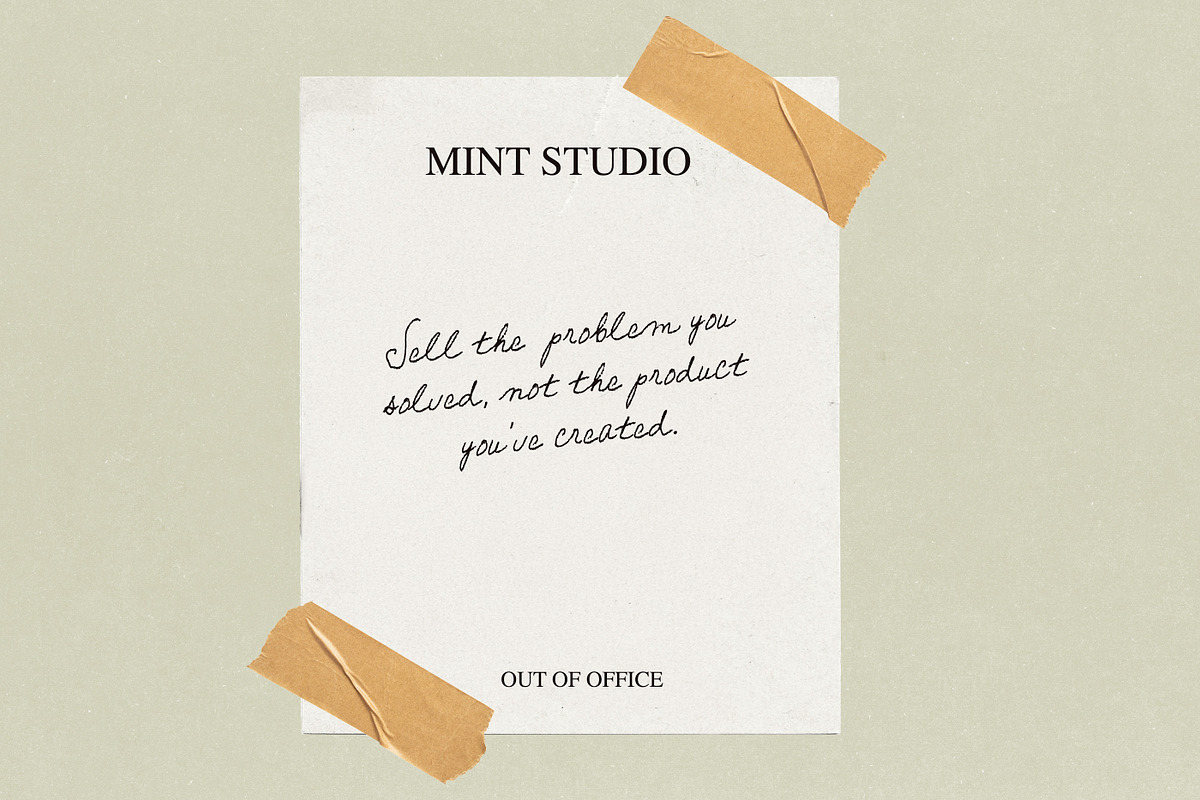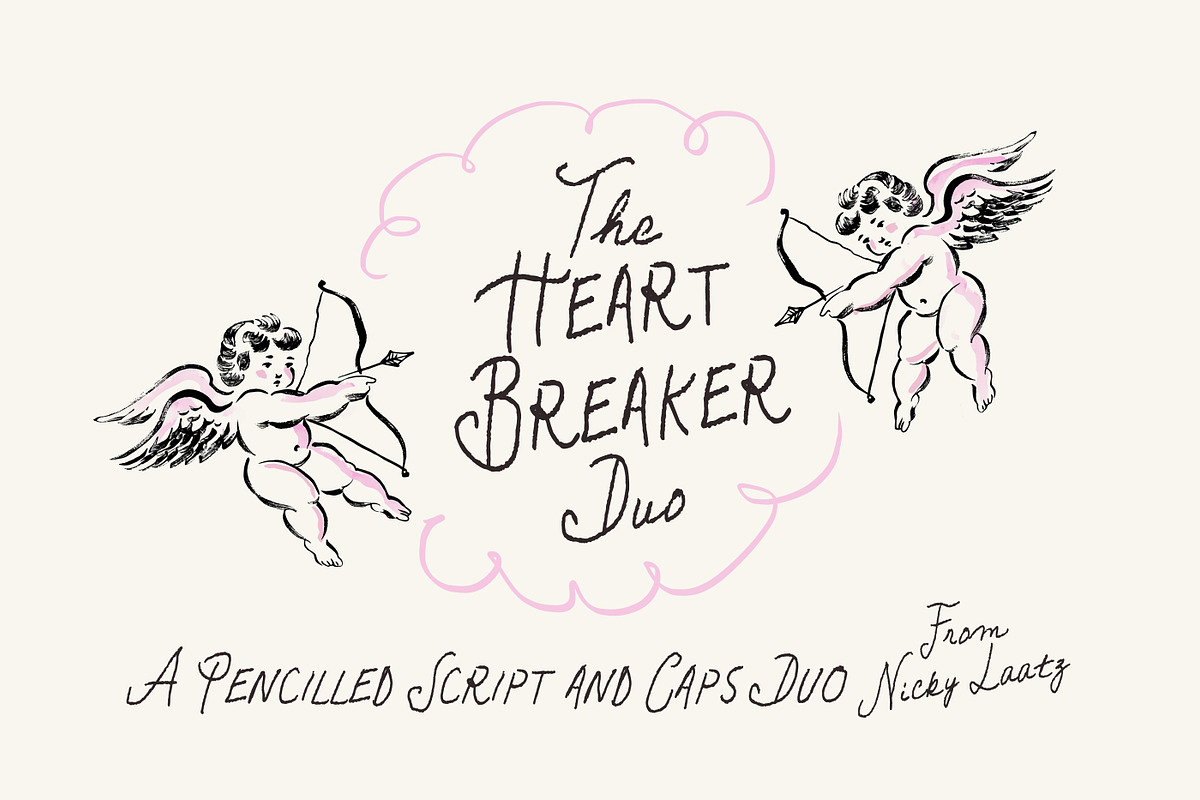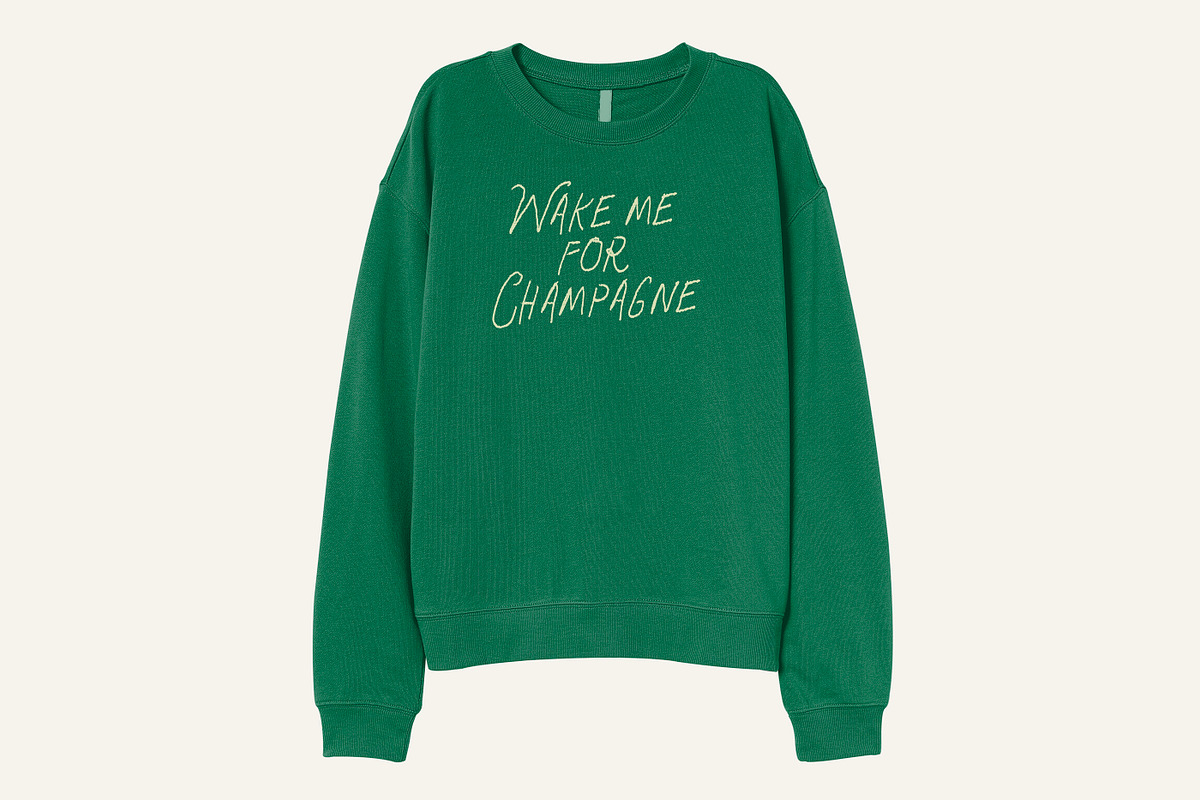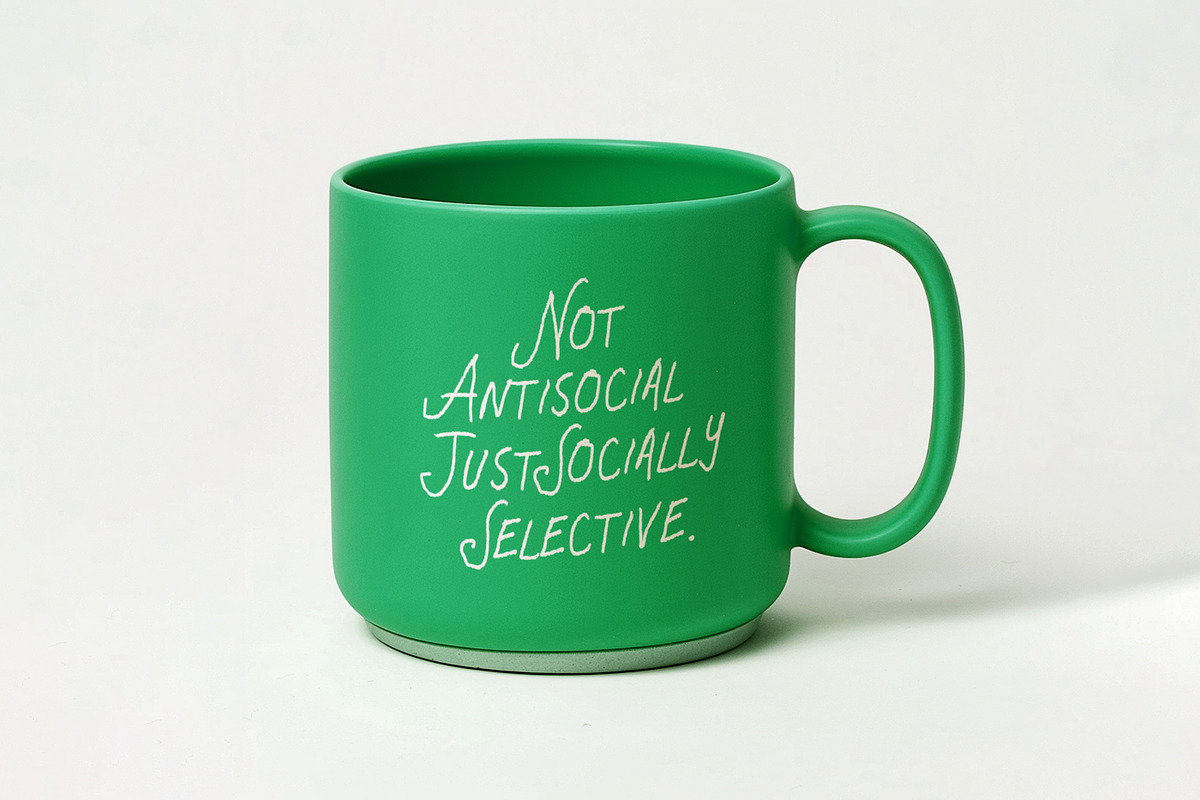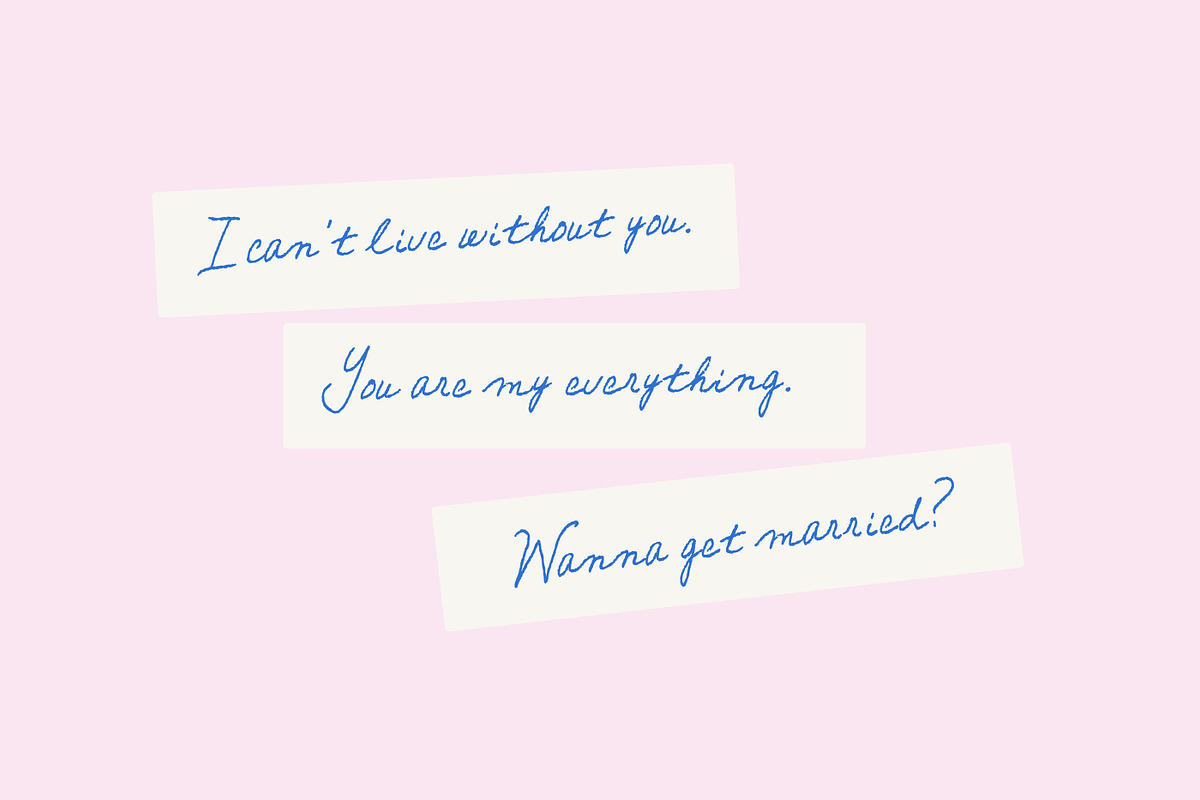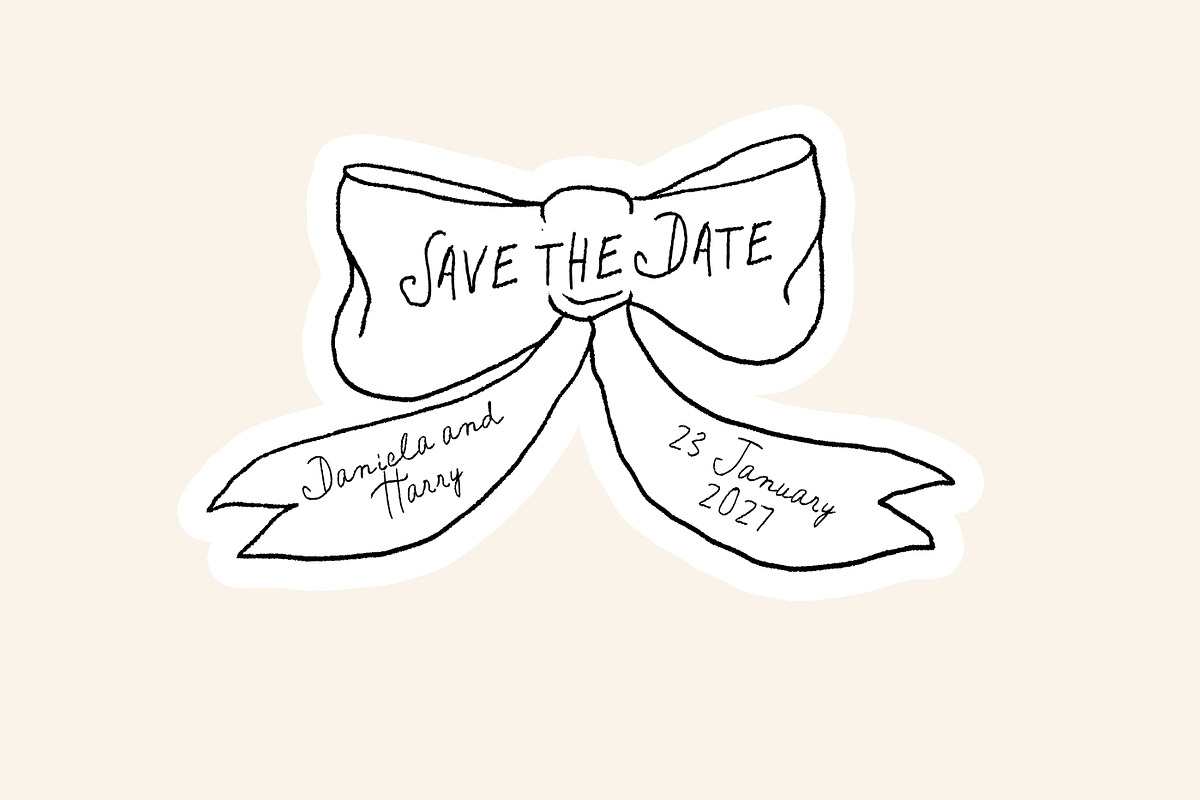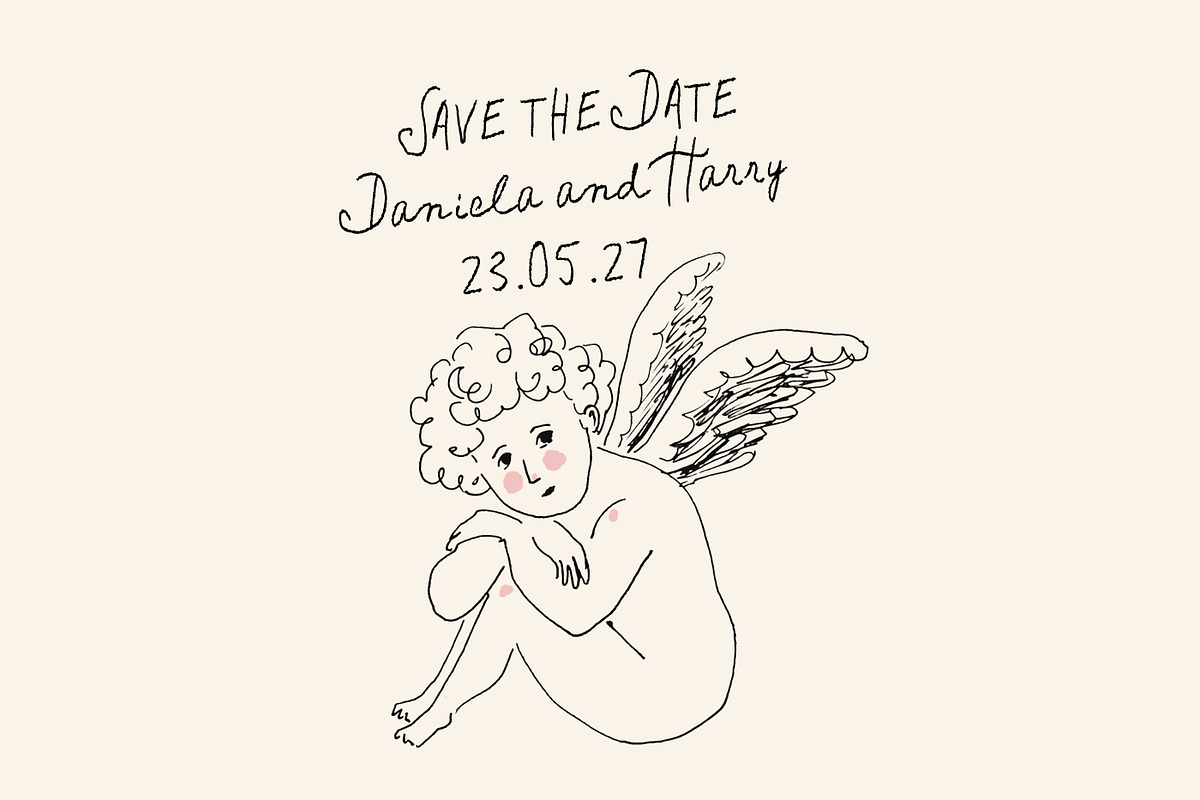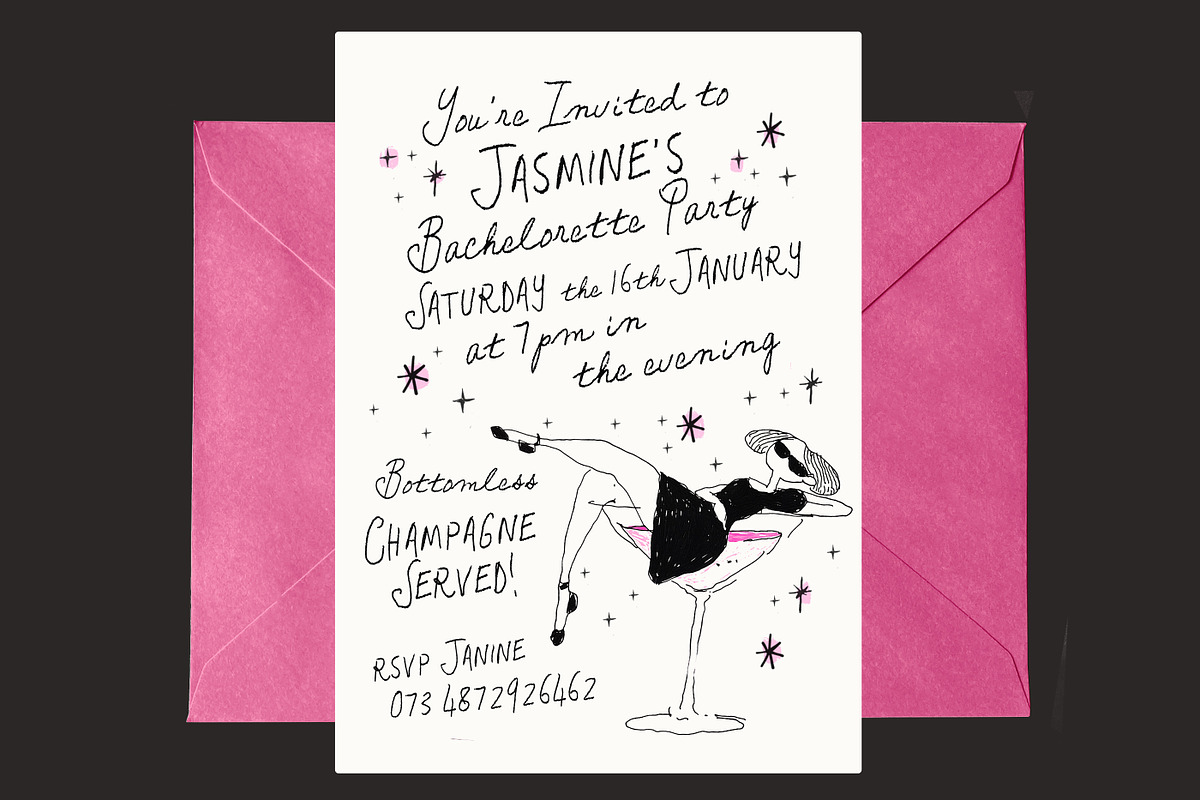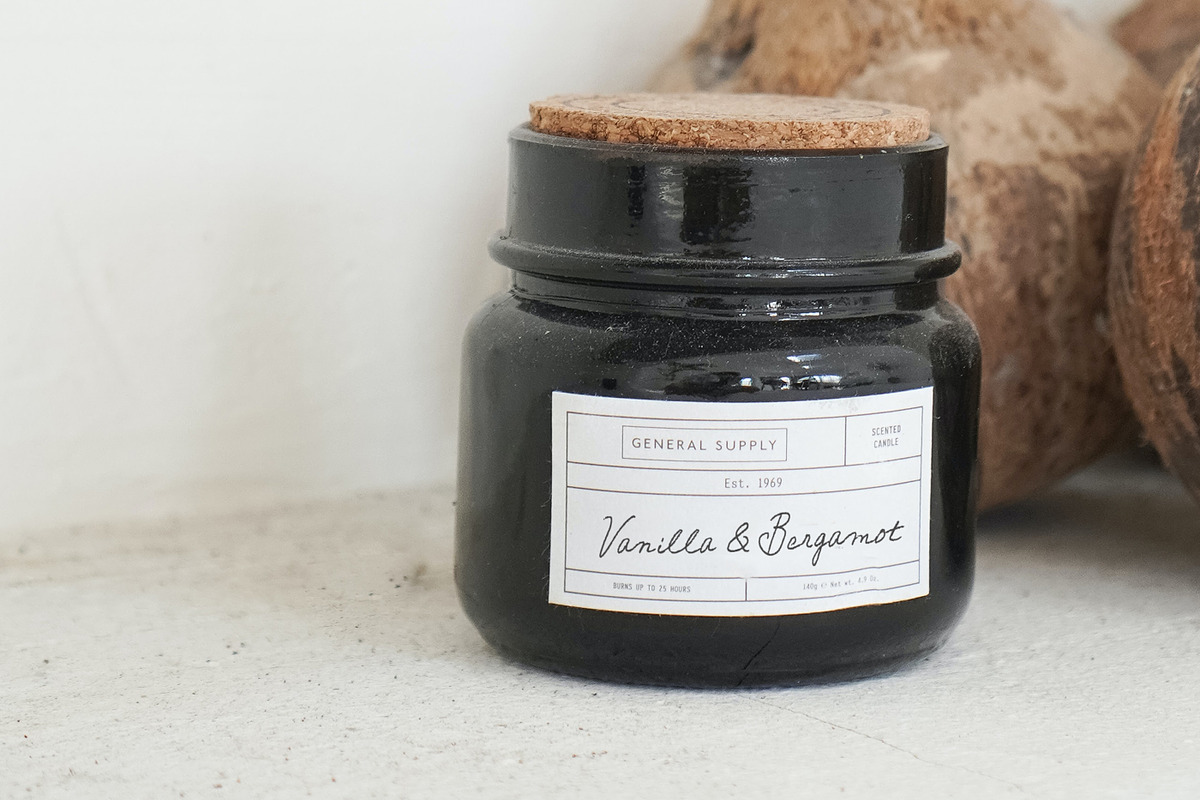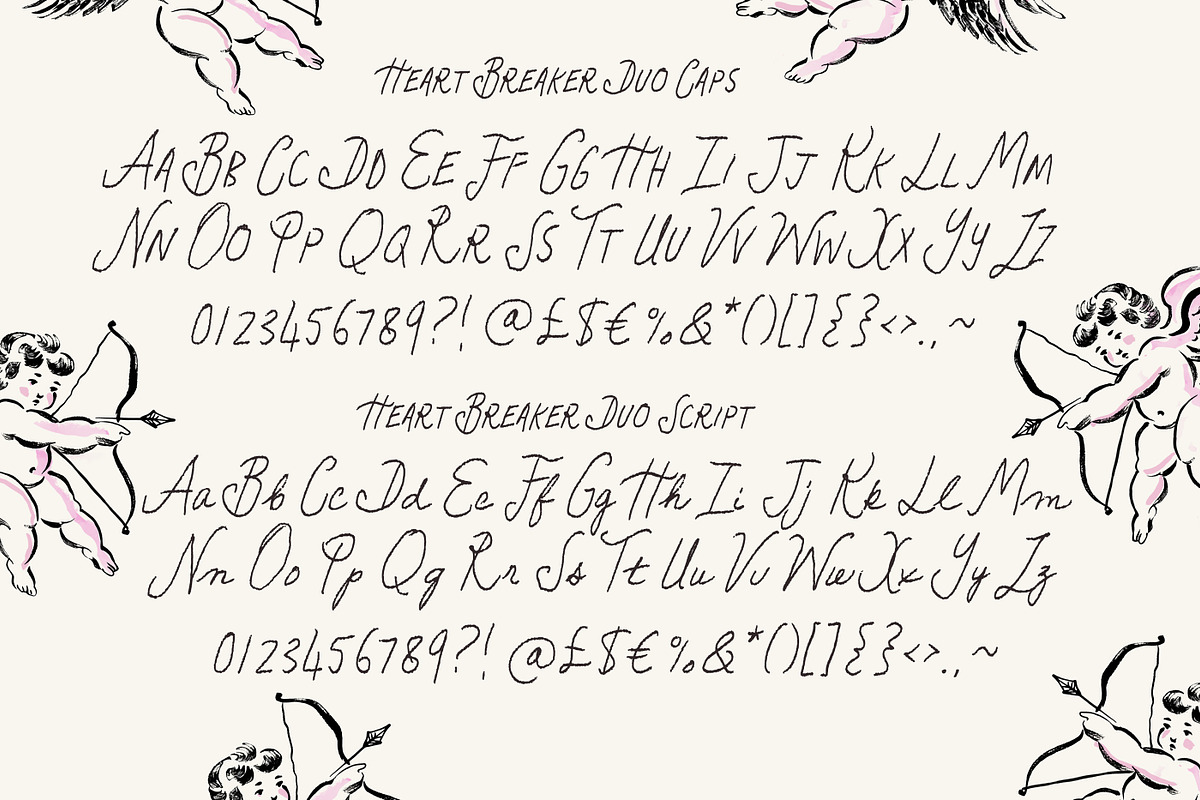
Heart Breaker Font Duo
Say hello to the Heart Breaker Font Duo! A Lovingly Pencilled, rough-edged Script and Caps Duo!
Raw, romantic, and irresistibly expressive. It’s where hand-drawn sweetness meets bold declaration, and the chemistry is electric.
The Duo consists of :
The Script : A free-flowing penciled script that dances across the page with natural texture and movement.
The Caps : Confident all-caps lettering that grounds the romance with structure and strength. Together, they create that perfect push-and-pull—soft yet assertive, tender yet daring.
Subtle irregularities give each word personality, as though it were written just for you. Perfect for flirty wedding stationary, romantic quotes, quirky branding, whimsical menus and invitations, stand out merch, greeting cards, stick notes, journal entries, and so much more.
Both have some handy variants in weight and slant, AND a few little hidden easter eggs are in there for you too :)